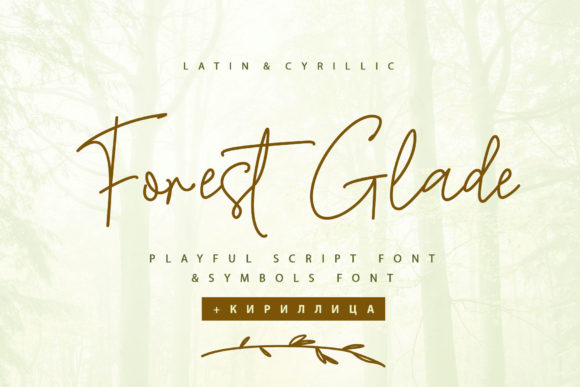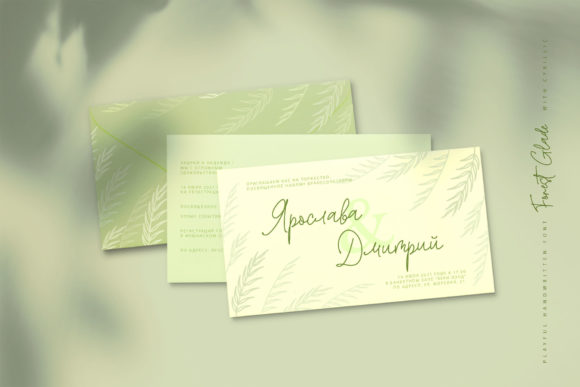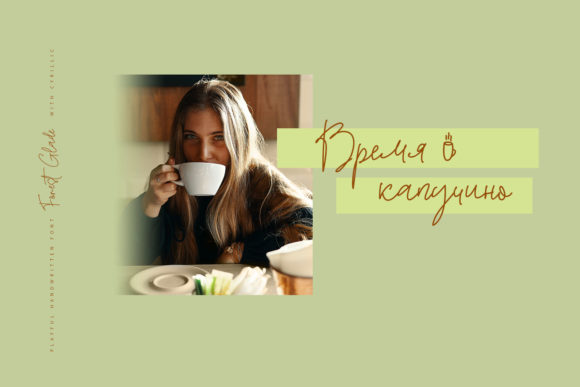
Forest Glade Font
About Forest Glade Font
Forest Glade is a stylish and delicate script font. It has a clean, thin and smooth vibe and it will be a hit for any design that you want to add it to.